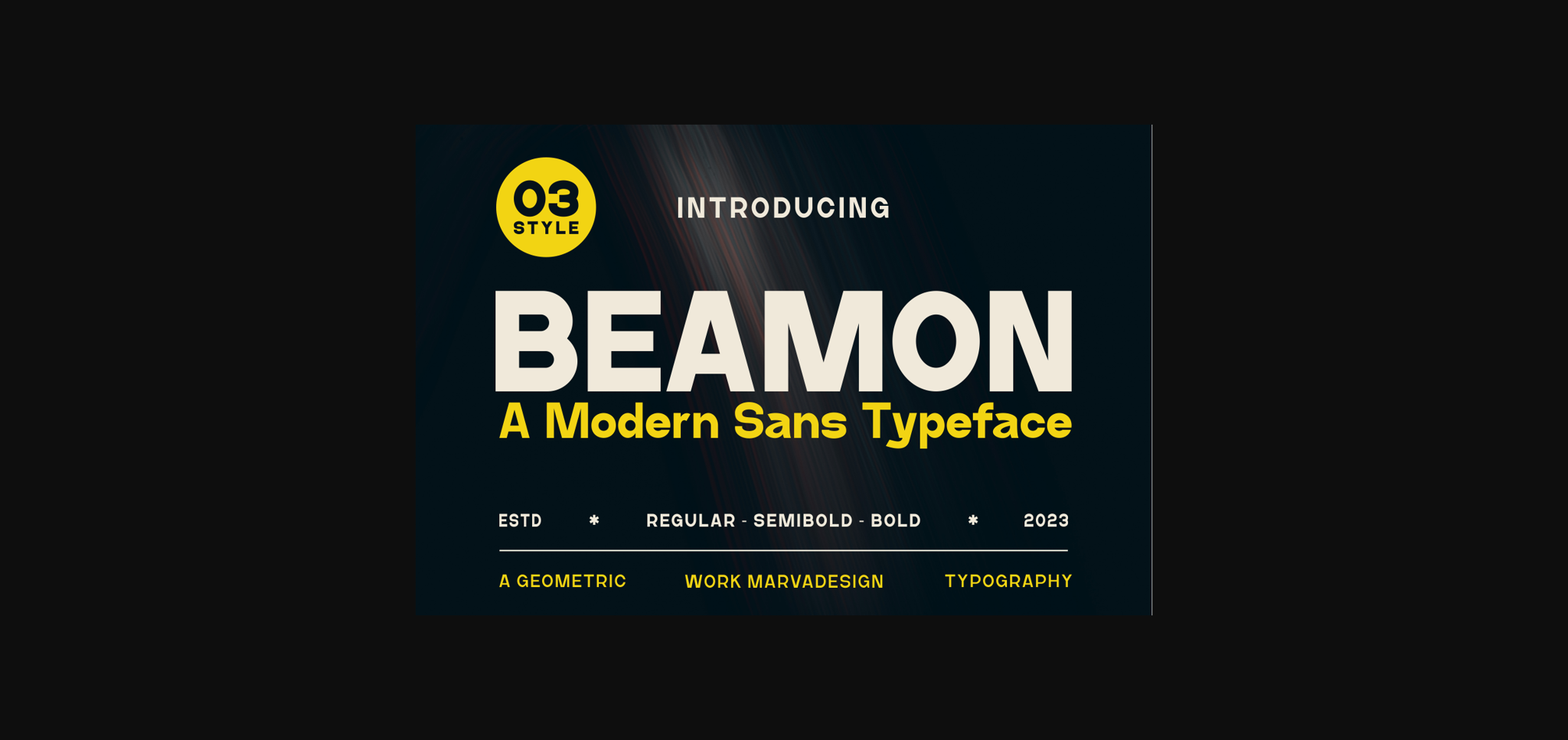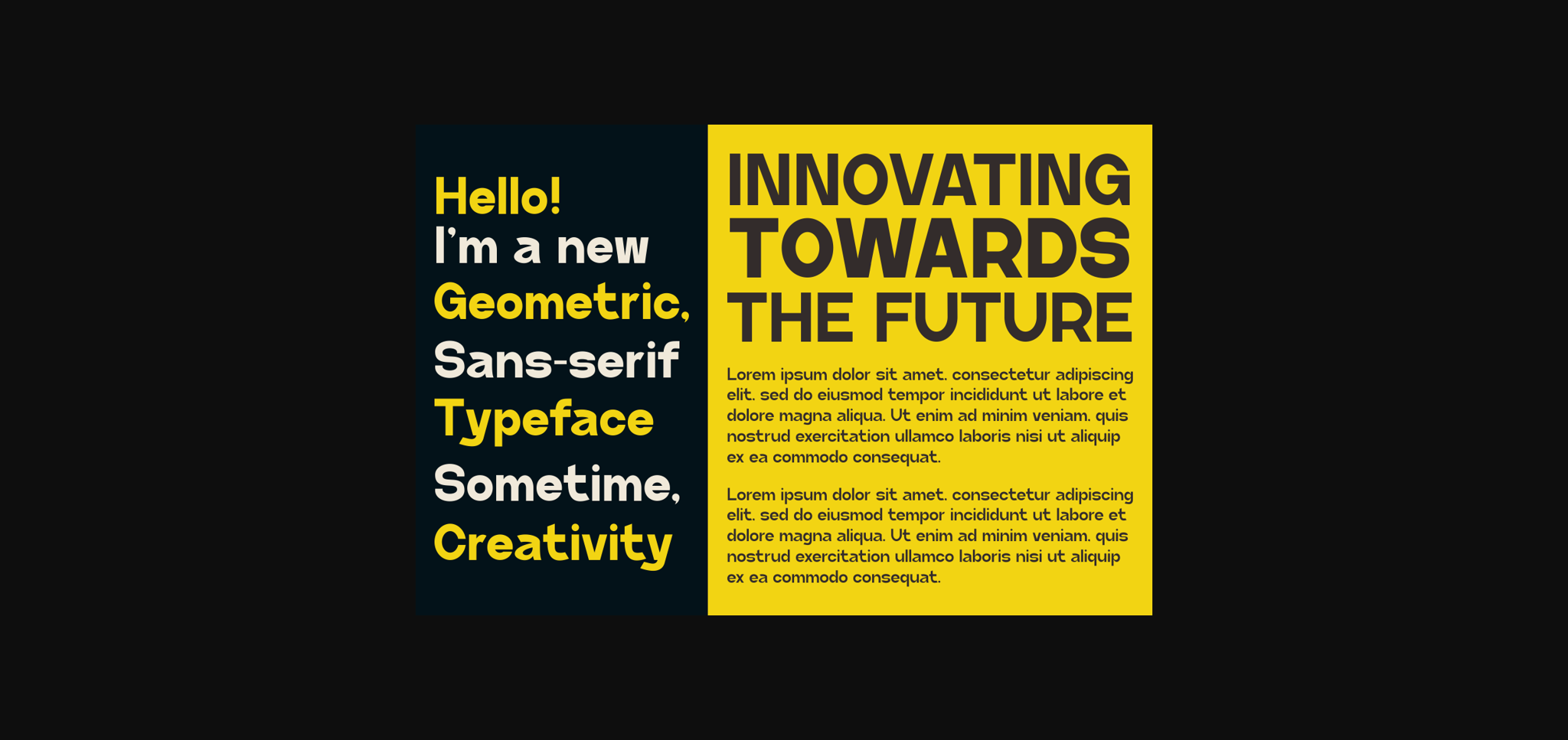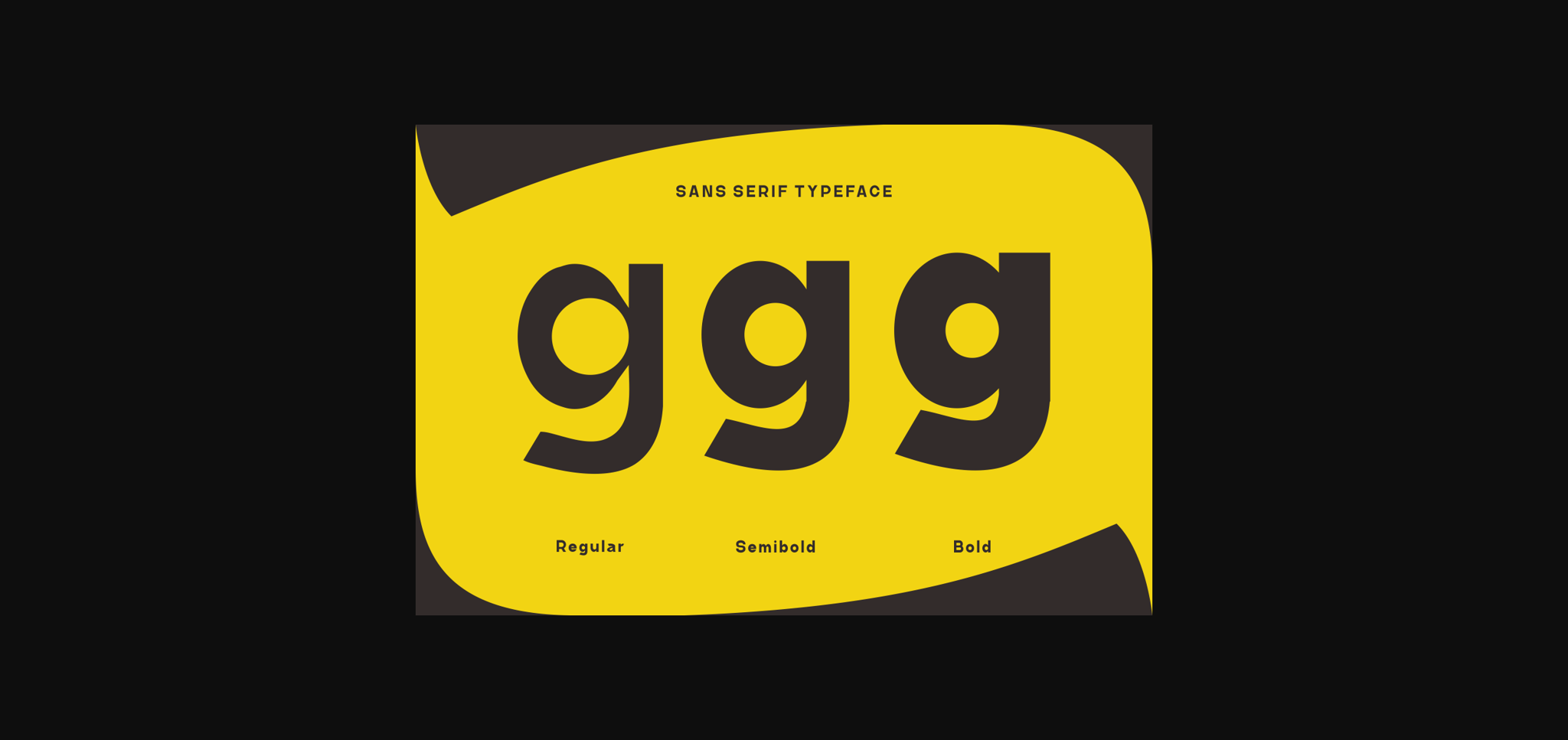
About Beamon Font
Beamon is a modern sans-serif typeface. This font is great for logos, badges, clothing, posters, and more. Beamon’s personality is fun and lively, reflected in its quirky details and playful demeanor. The font injects a sense of joy and excitement into any text, making it perfect for projects aimed at capturing attention and eliciting positive emotions.